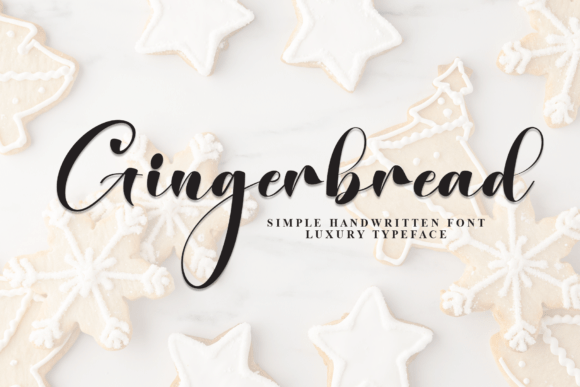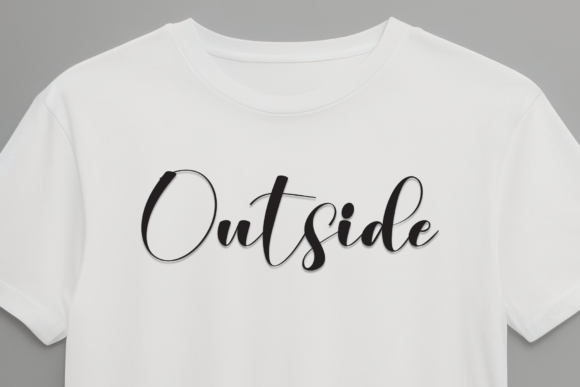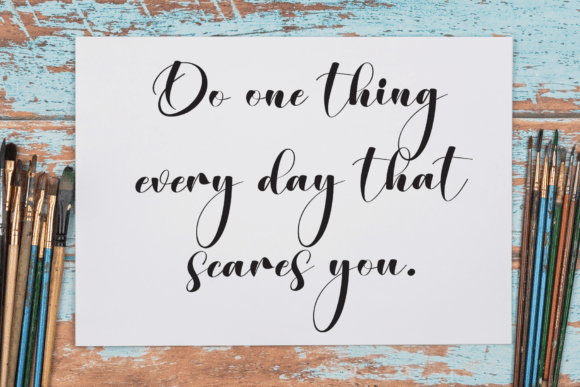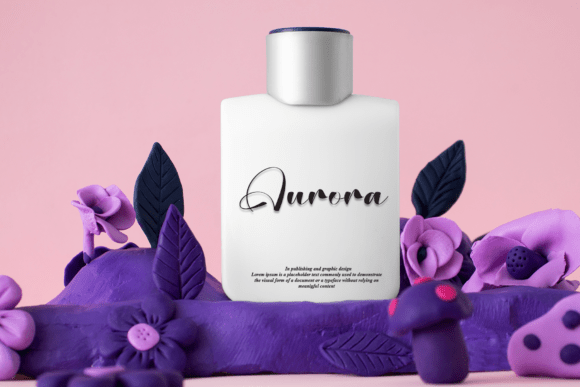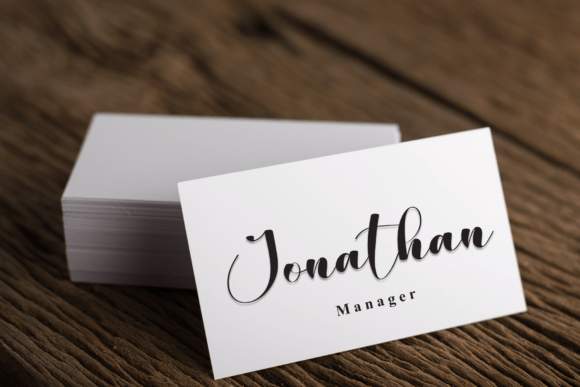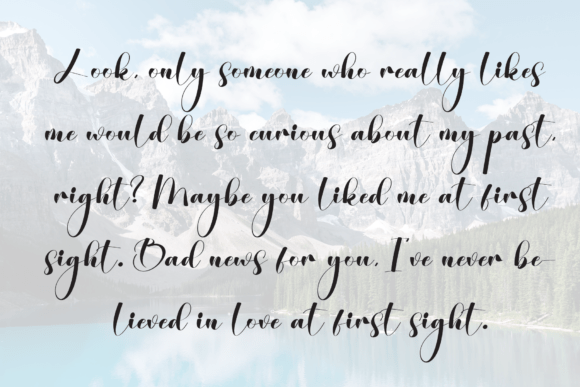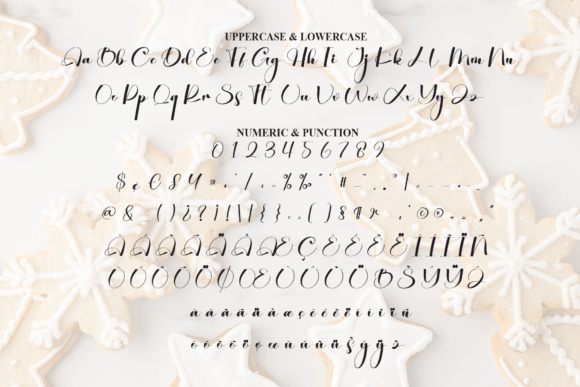
Unleash Your Creativity with the Sweetest Font Around
Have you ever found yourself in a creative rut, staring at a blank page, searching for the perfect font to bring your vision to life? We’ve all been there. But what if I told you that there’s a font that’s as sweet as it is stylish? Introducing the Gingerbread Font, a delightful collection of letters designed to add a touch of whimsy and charm to any project.
This special font is more than just a pretty face – it’s a valuable tool for designers looking to add a unique twist to their work. Whether you’re creating wedding invitations, social media post logos, or product packaging, the Gingerbread Font is the perfect addition to your design arsenal. With its versatility and ease of use, you’ll be hooked from the very first use.
Gingerbread Font Key Features
- Font Family: A unique, hand-drawn font with a warm and inviting feel, ideal for creating a festive atmosphere.
- Character Set: Includes a comprehensive set of characters, including uppercase and lowercase letters, numbers, punctuation marks, and special characters, making it suitable for everyday use.
- Unique Characteristics: Features a distinctive, hand-drawn design with subtle texture and imperfections, giving it a warm and organic feel that’s perfect for creating a cozy and inviting atmosphere.
Gingerbread Font Review
Overall, I have mixed feelings about the Gingerbread Font. On the one hand, it has some wonderful features that make it a joy to use. ✨
- Playful, whimsical feel: The font’s design is reminiscent of classic baked goods, adding a touch of warmth and coziness to any text.
- Good for titles and headings: The font’s bold lines and bright colors make it perfect for grabbing attention and setting the tone for your design.
However, there are also some limitations to consider. ⚠️
- Not ideal for body text: The font’s playful feel may be distracting or overwhelming when used for large blocks of text.
- Limited font sizes: The font’s design may not scale well to smaller or larger sizes, potentially affecting readability.
- Not suitable for formal designs: The font’s casual, playful feel may not be suitable for formal or professional designs.
Overall, I think the Gingerbread Font is a fun and creative choice for designers looking to add a touch of personality to their work. However, it’s not a one-size-fits-all solution, and designers should carefully consider the context and intended use of the font before making a decision.
Tips for Getting the Most Out of Gingerbread Font
To get the most out of Gingerbread Font, use it in conjunction with other festive graphics and colors to create a cohesive holiday design. Experiment with different font sizes and styles to add visual interest. Consider using Gingerbread Font in conjunction with other fonts to create a unique and eye-catching design.
Gingerbread Font is ideal for holiday-themed designs, such as Christmas cards, gift tags, and party invitations. It can also be used for food-related designs, such as recipe cards and menus, or for general festive graphics and decorations.